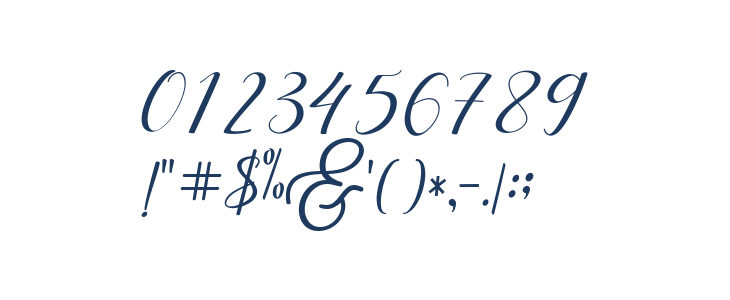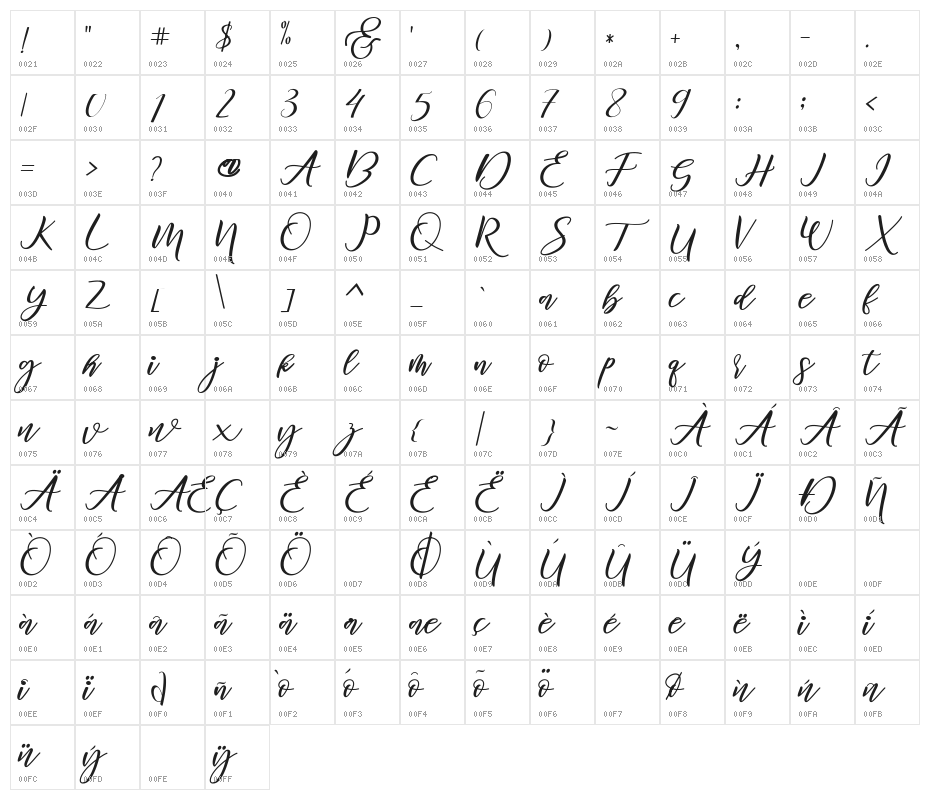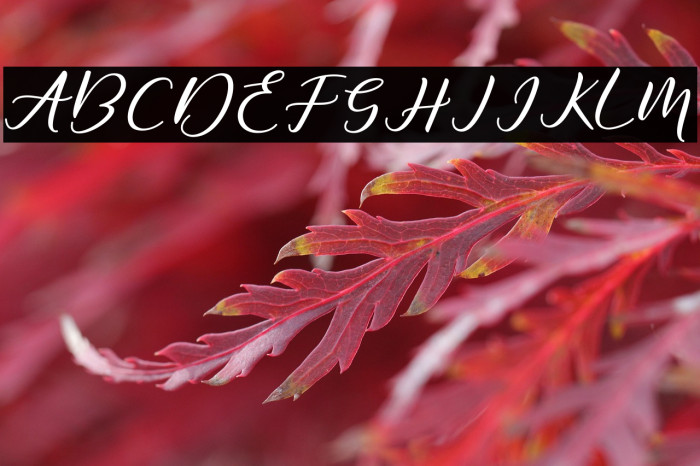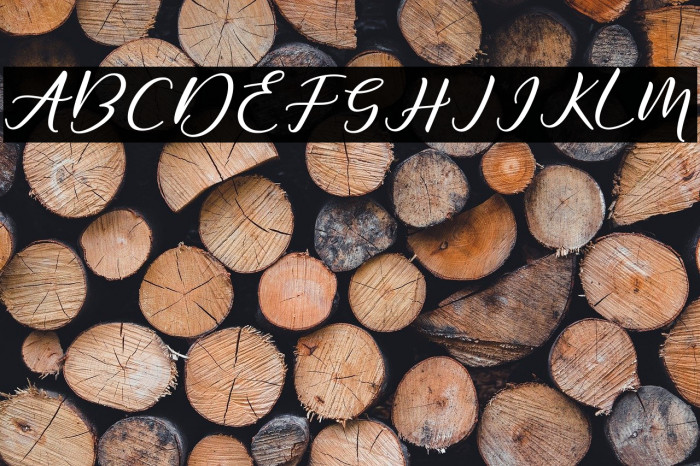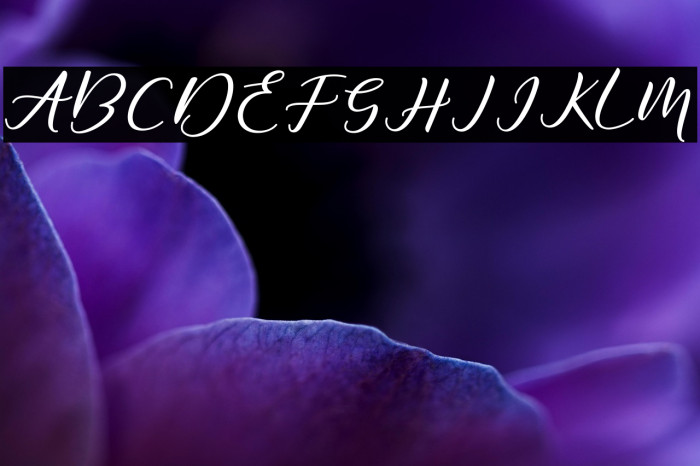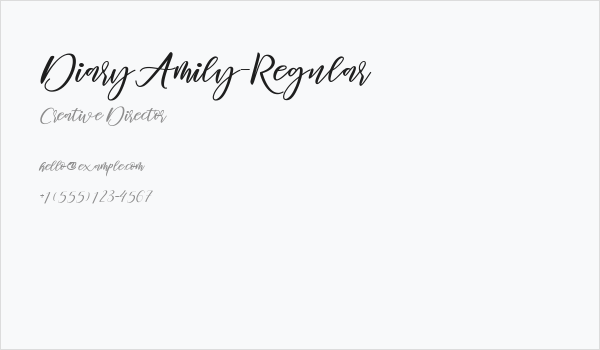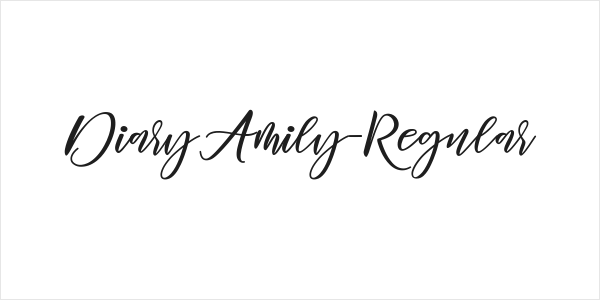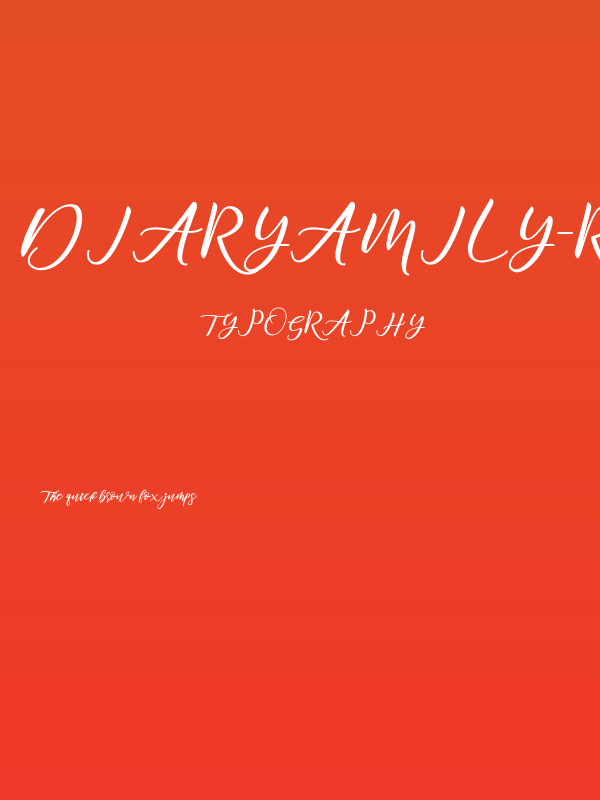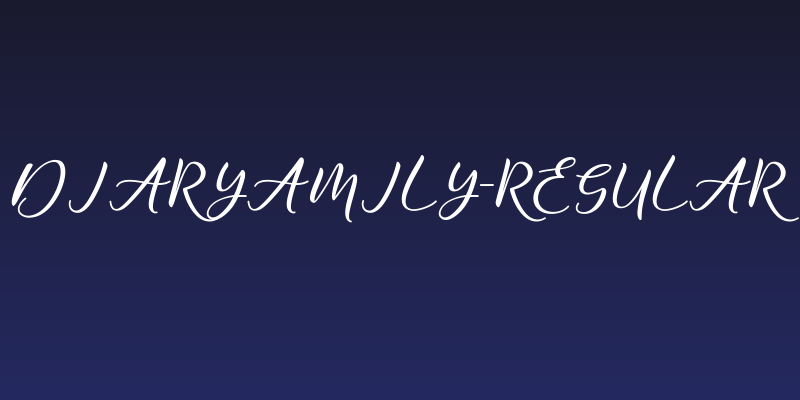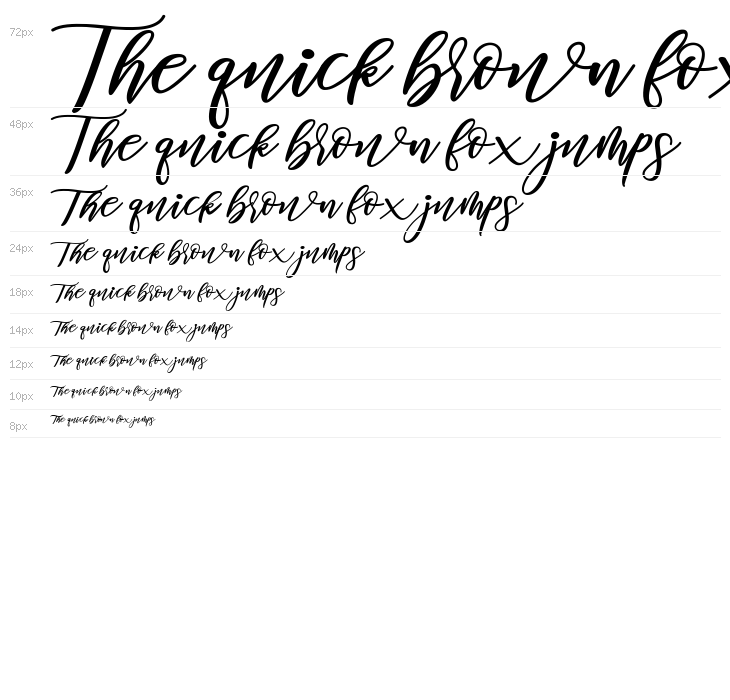
DiaryAmily-Regular Font
DiaryAmily-Regular Description
This font exudes a charming and elegant script style, characterized by its fluid and graceful strokes. The uppercase letters are slightly more formal, with a consistent slant and smooth curves, while the lowercase letters offer a more playful and dynamic appearance. The numbers maintain the same flowing style, ensuring a cohesive look throughout. Special characters are designed with the same attention to detail, making them blend seamlessly with the rest of the font. The overall appearance is both sophisticated and approachable, making it suitable for a variety of uses.
| Proposed Projects | Ideal for wedding invitations, greeting cards, branding, and elegant packaging. |